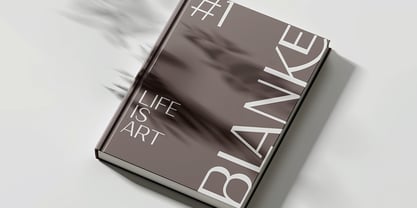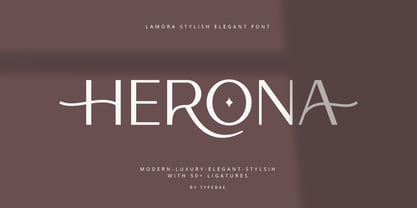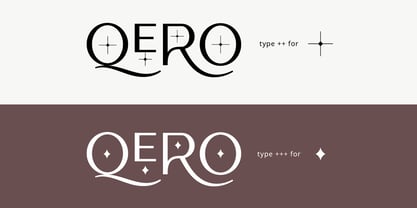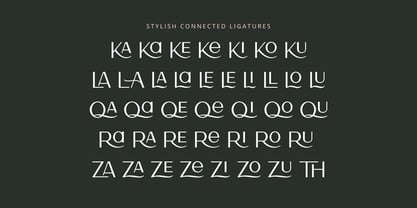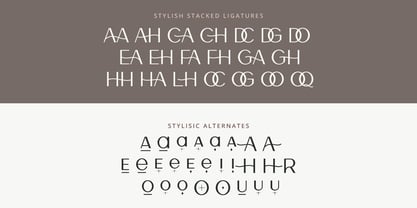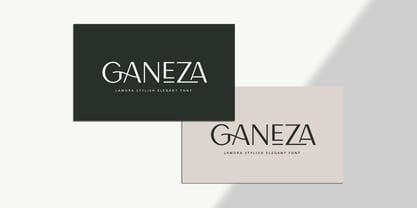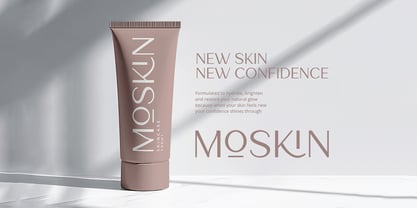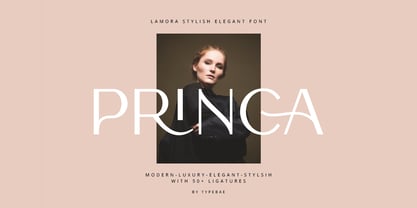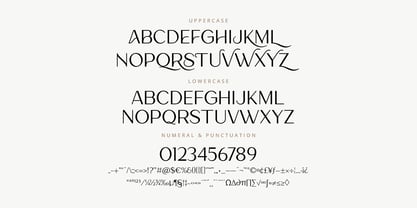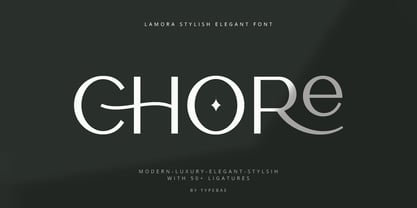
Lamora
by Typebae
The Lamora Font Family was designed by Iqbal Pauji and published by Typebae. Lamora contains 1 styles. More about this family
Lamora is a luxury and modern logo font, designed with a refined touch to elevate any brand identity. It features stylish ligatures and elegant stylistic alternates, giving you endless creative possibilities to craft unique and sophisticated typography. With its clean curves and graceful letterforms, Mora is perfect for high-end branding, fashion labels, editorial layouts, wedding invitations, and minimalist logos. This versatile typeface blends timeless charm with a contemporary edge, making it ideal for both print and digital designs. What’s Included? Uppercase, Lowercase, Numeral & Punctuation Ligatures & Stylistic Alternates PUA Encoded & Multilingual